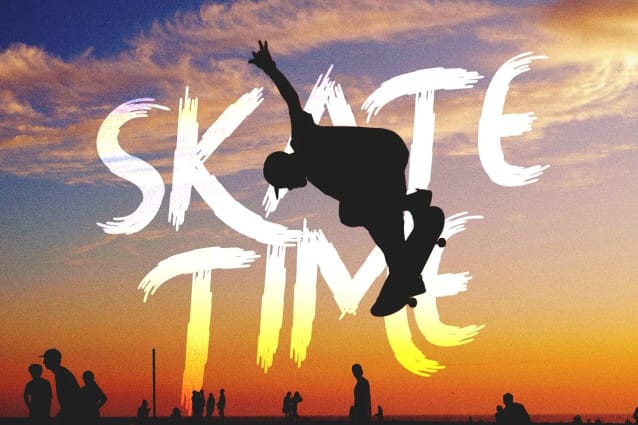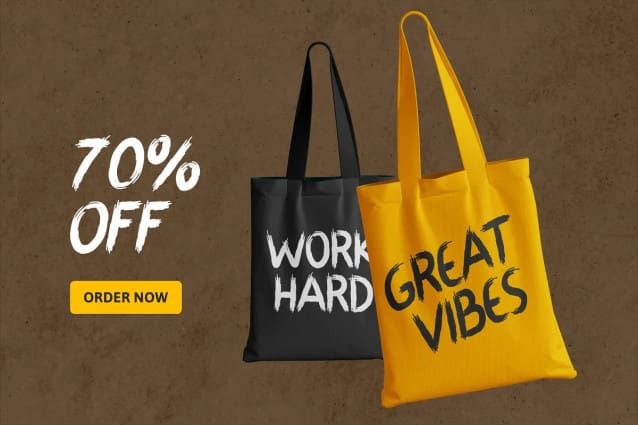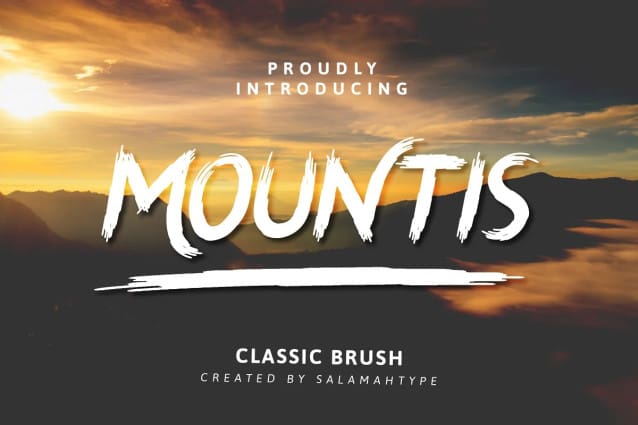
Mountis Brush Font
Mountis Brush Font – A stylish and classic brush font with alternates. Perfect for branding project, logos, websites, quotes, posters, magazines, social media and more.